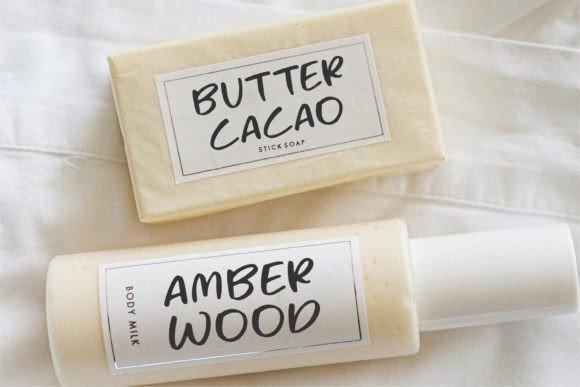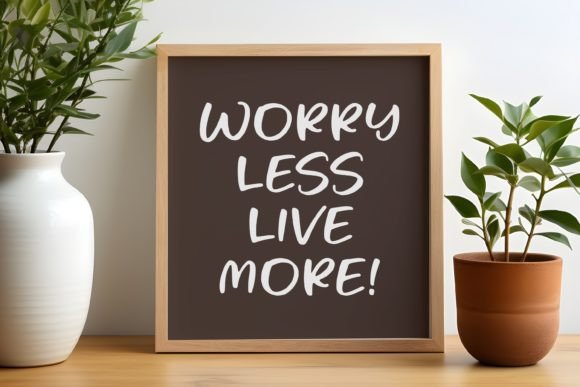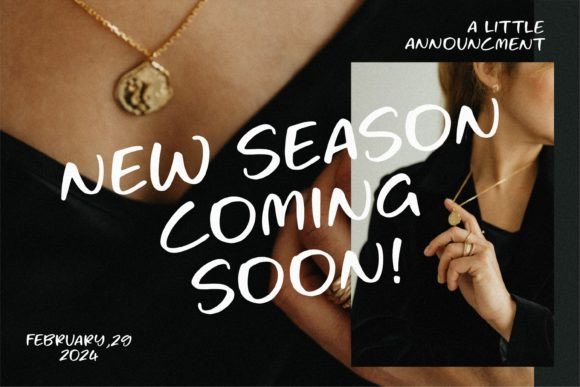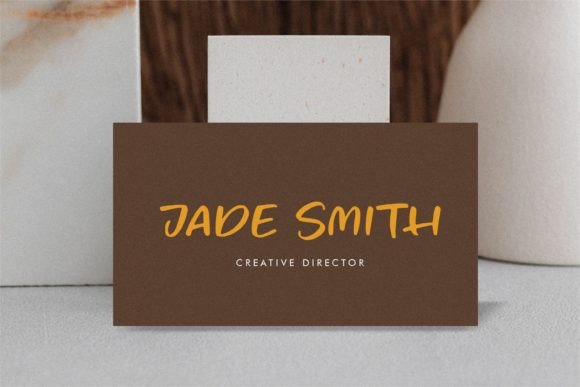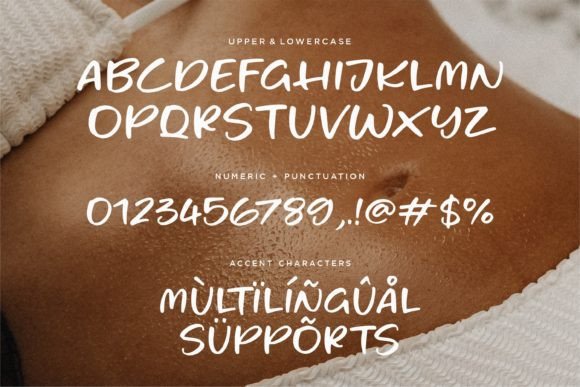
Introduction to Ocean Oasis Font Font
Fonts play a crucial role in design, and the Ocean Oasis Font font is a typeface that brings both character and versatility to any project. Whether you’re working on a branding project, a website, or a print design, the Ocean Oasis Font font offers a unique style that can elevate your work.
Ocean Oasis is a handwritten font that takes inspiration from the fluidity and uniqueness of human handwriting, ensuring that each letter carries a sense of character and charm.
With its graceful curves and delicate strokes, this font adds an intimate and personal feel to your written words Perfect for creating notes, memos, journal entries, or beautiful quote designs, Ocean Oasis elevates your messages with a sense of authenticity and warmth.
The Ocean Oasis Font font is more than just a typeface – it’s a design tool that helps you communicate your message with style and clarity. Its unique character set and versatile design make it suitable for a wide range of applications, from elegant invitations to bold headlines.
With its carefully crafted letterforms and balanced proportions, the Ocean Oasis Font font ensures readability and visual appeal across all mediums.
The Ocean Oasis Font font stands out with its unique design, exceptional readability, and versatility across various design applications.